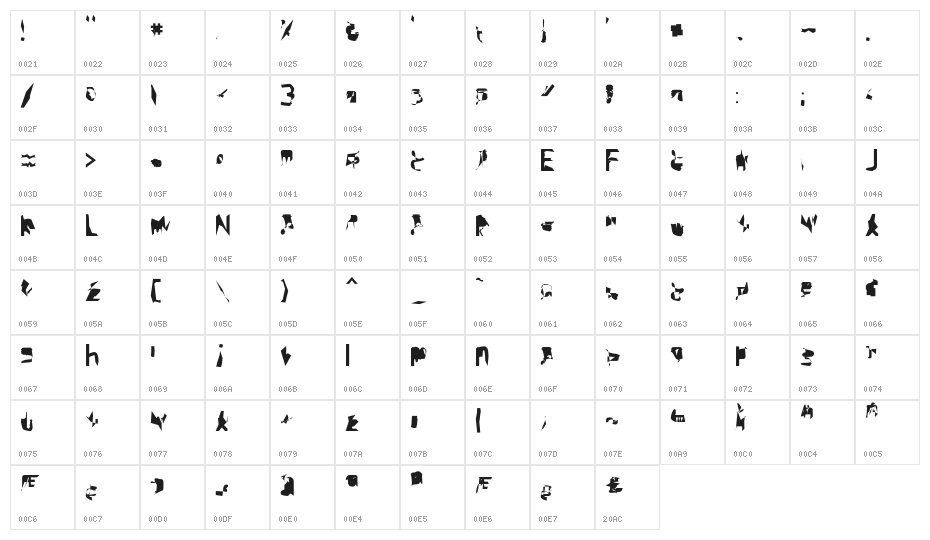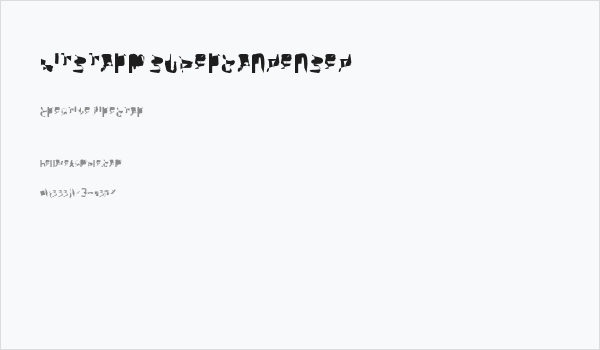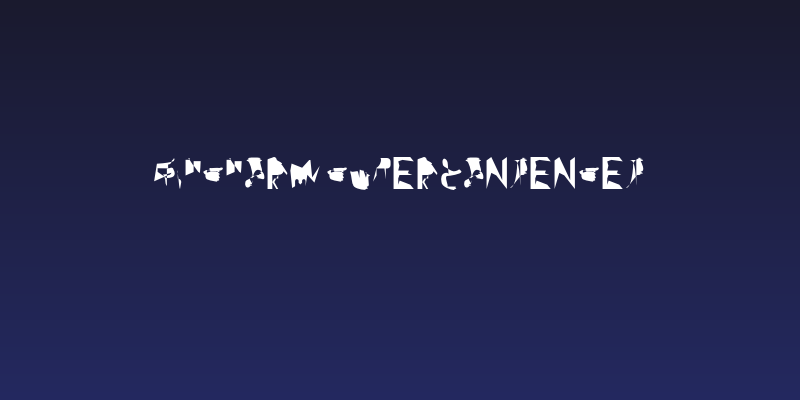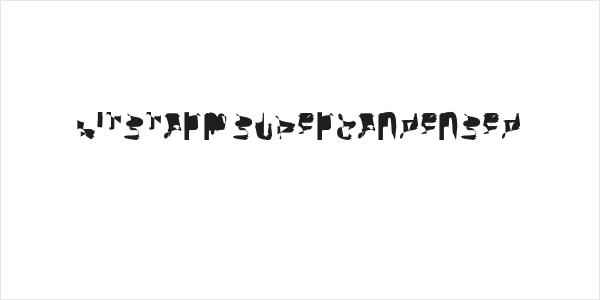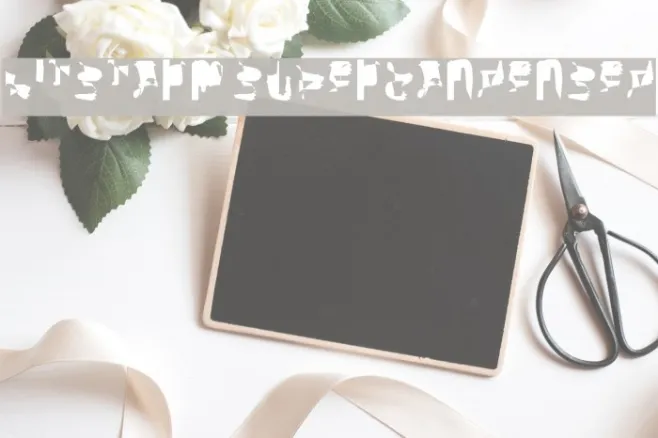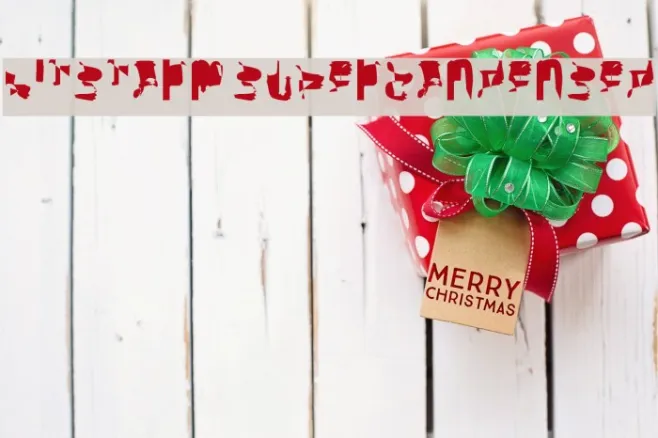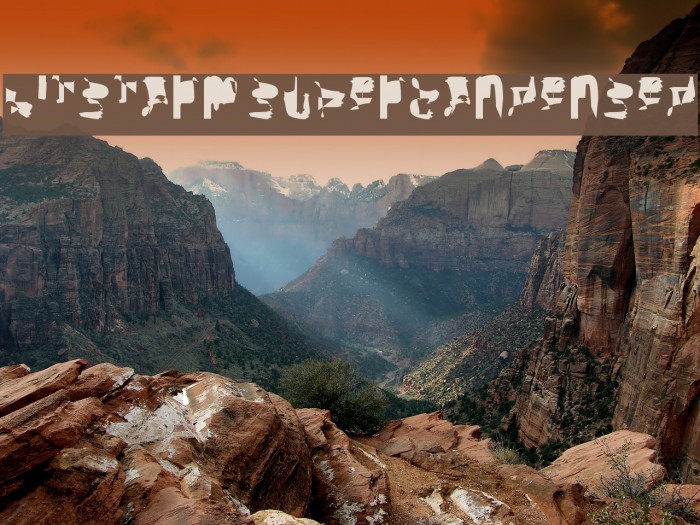
bitstorm supercondensed Font
bitstorm supercondensed Description
This font features an extremely condensed and abstract design, characterized by sharp angles and fragmented shapes. The letters are heavily stylized, with a chaotic and distorted appearance that challenges readability. The strokes are bold and irregular, creating a sense of movement and energy. This font is highly decorative, with each character appearing as a unique piece of art. The overall impression is one of modernity and avant-garde style, making it suitable for projects that aim to stand out with a distinct and unconventional aesthetic.
| Overall Style | Modern, Avant-garde |
| Proposed Projects | Ideal for experimental design projects, avant-garde posters, album covers, or any creative work that requires a bold and unconventional typeface. |